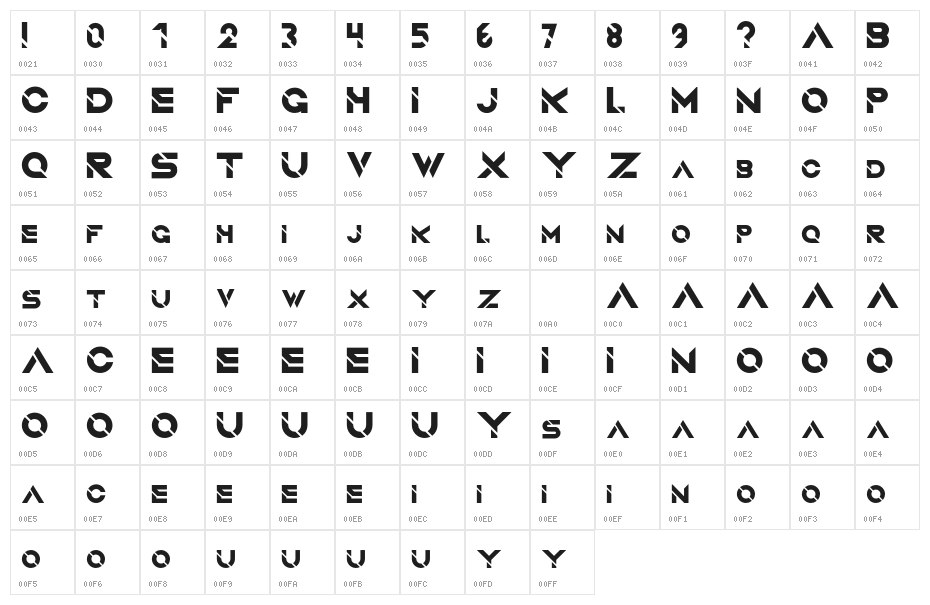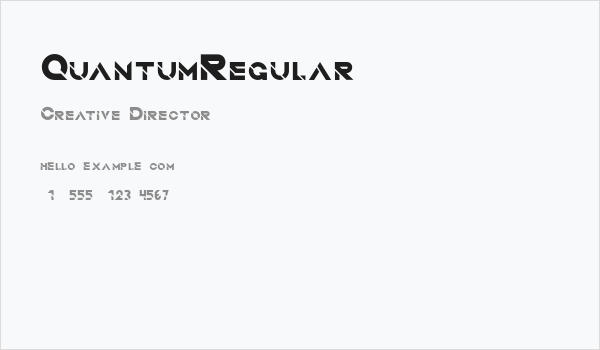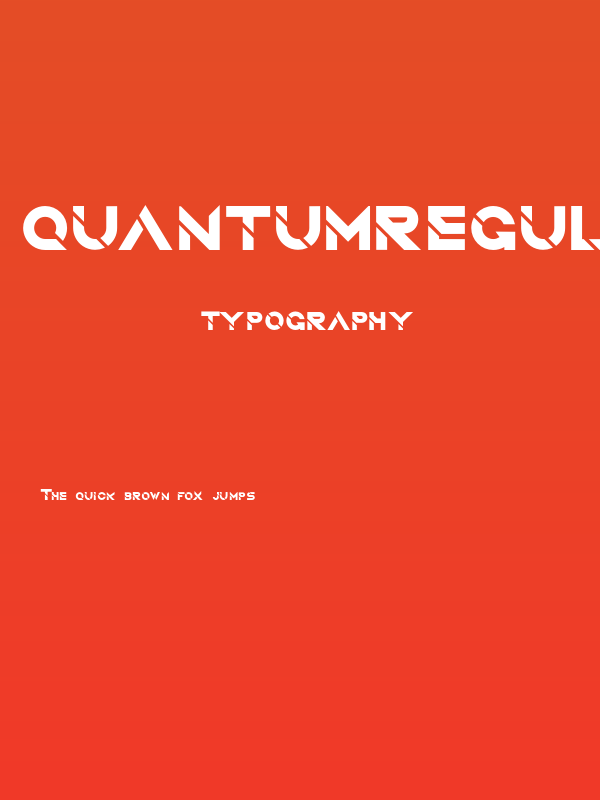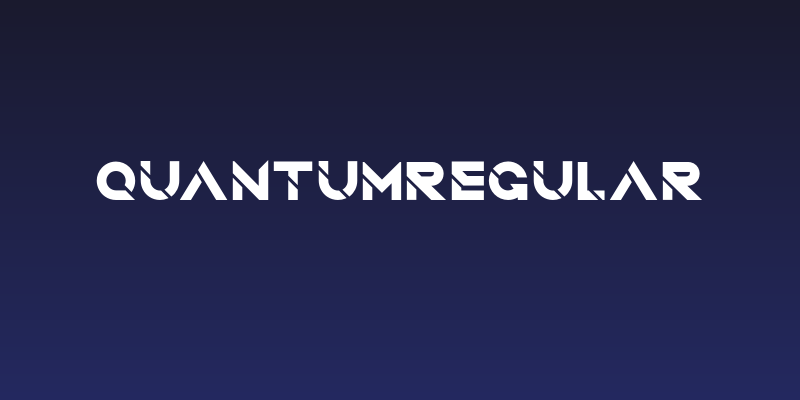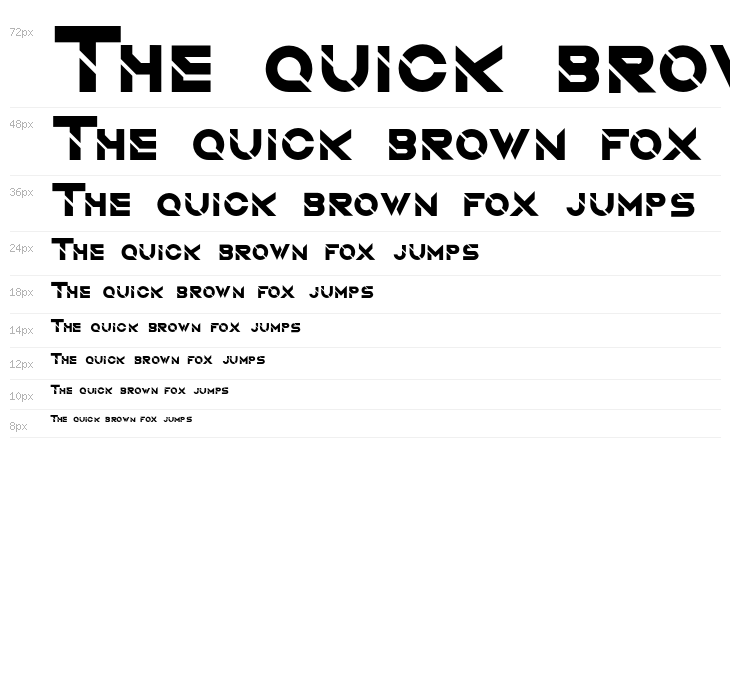
QuantumRegular Font
QuantumRegular Description
This font features a bold, geometric style with sharp angles and a futuristic aesthetic. The characters are constructed with solid, block-like shapes, creating a sense of strength and modernity. The design incorporates unique cutouts and negative spaces within each letter, adding an element of intrigue and complexity. The uppercase and lowercase letters maintain a consistent style, while the numerals and special characters follow the same design principles, ensuring uniformity across all elements. This font is ideal for projects that require a modern, tech-inspired look.
| Proposed Projects | Ideal for technology branding, sci-fi movie posters, video game titles, and modern advertising campaigns. |